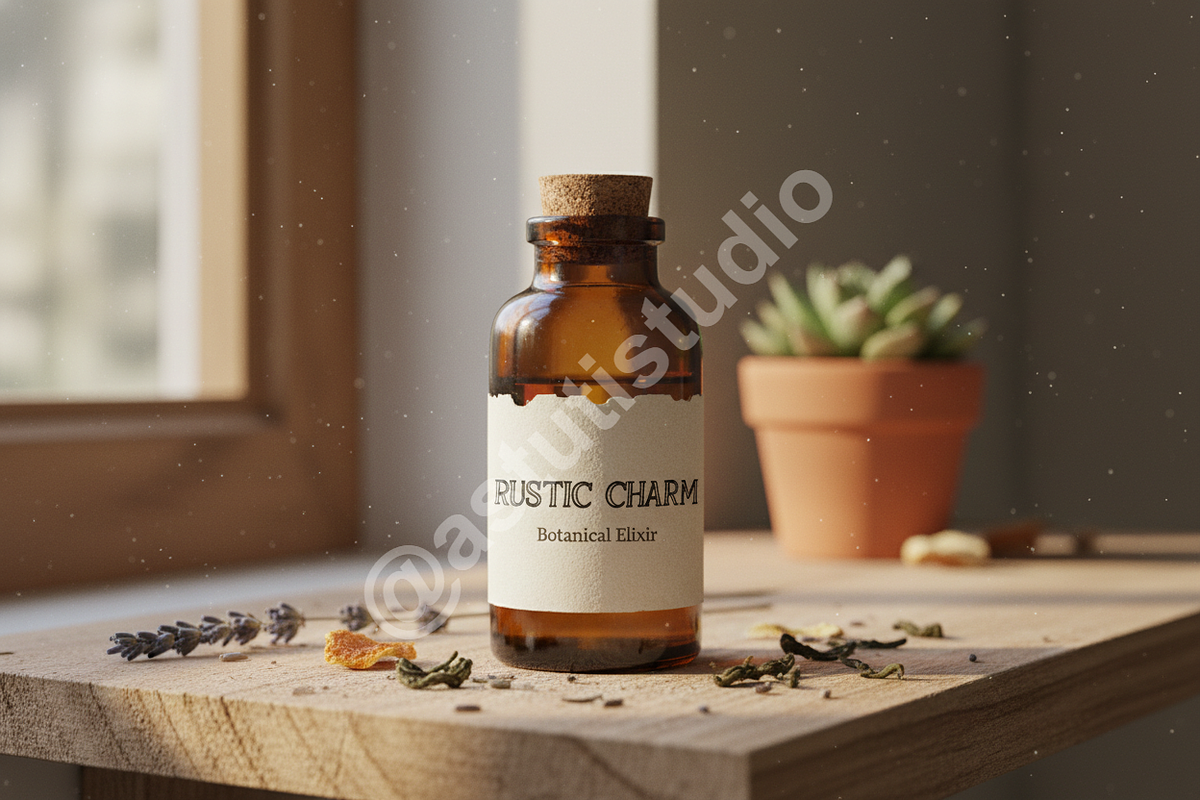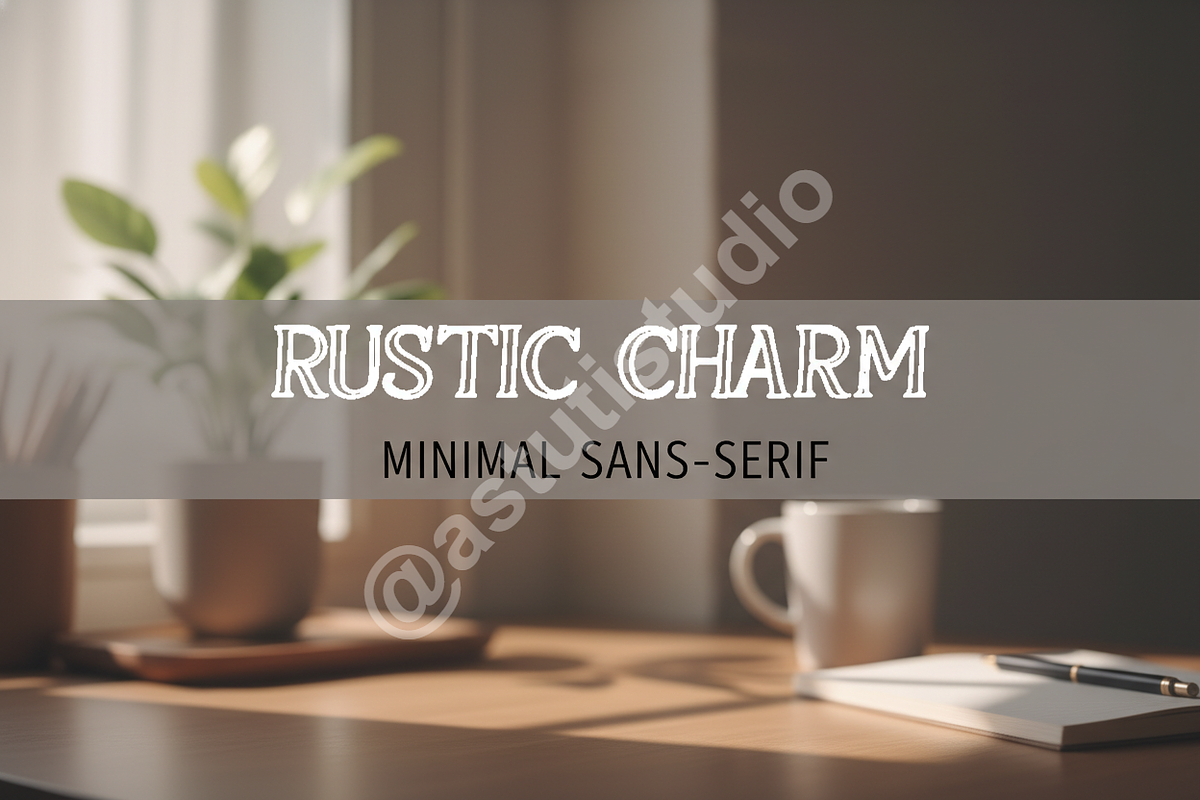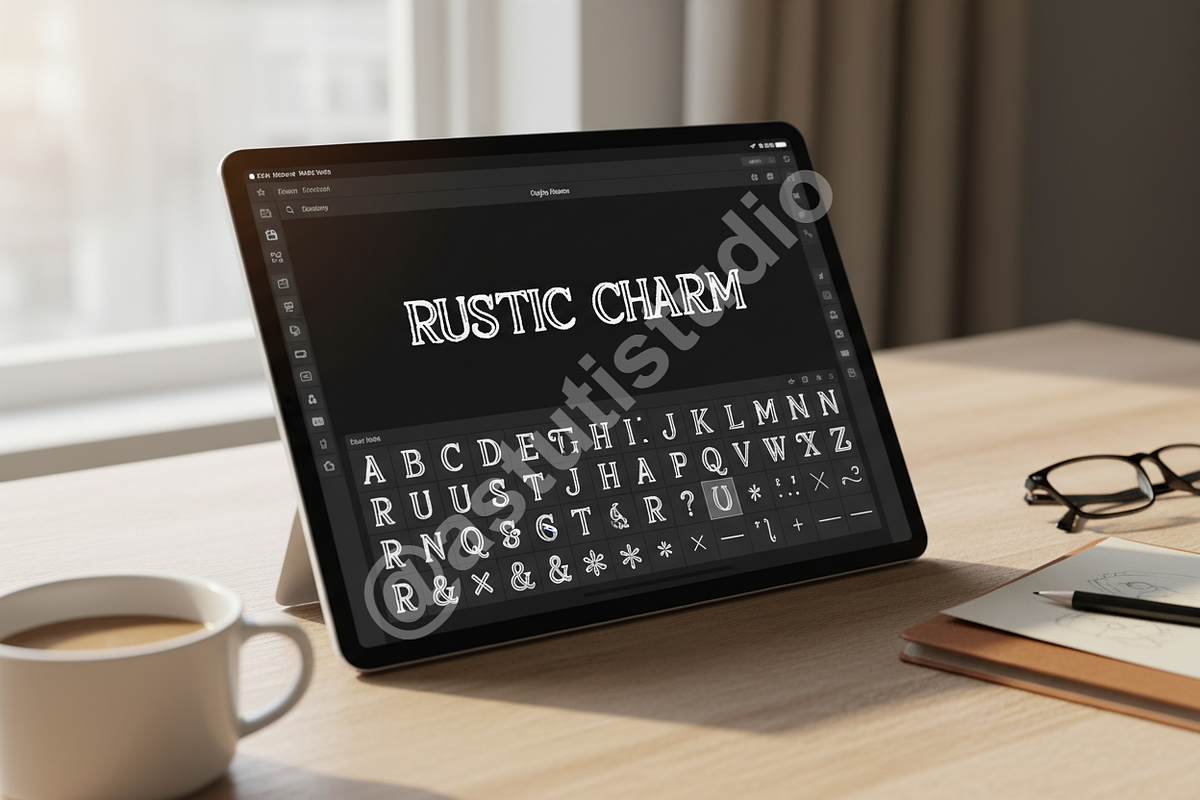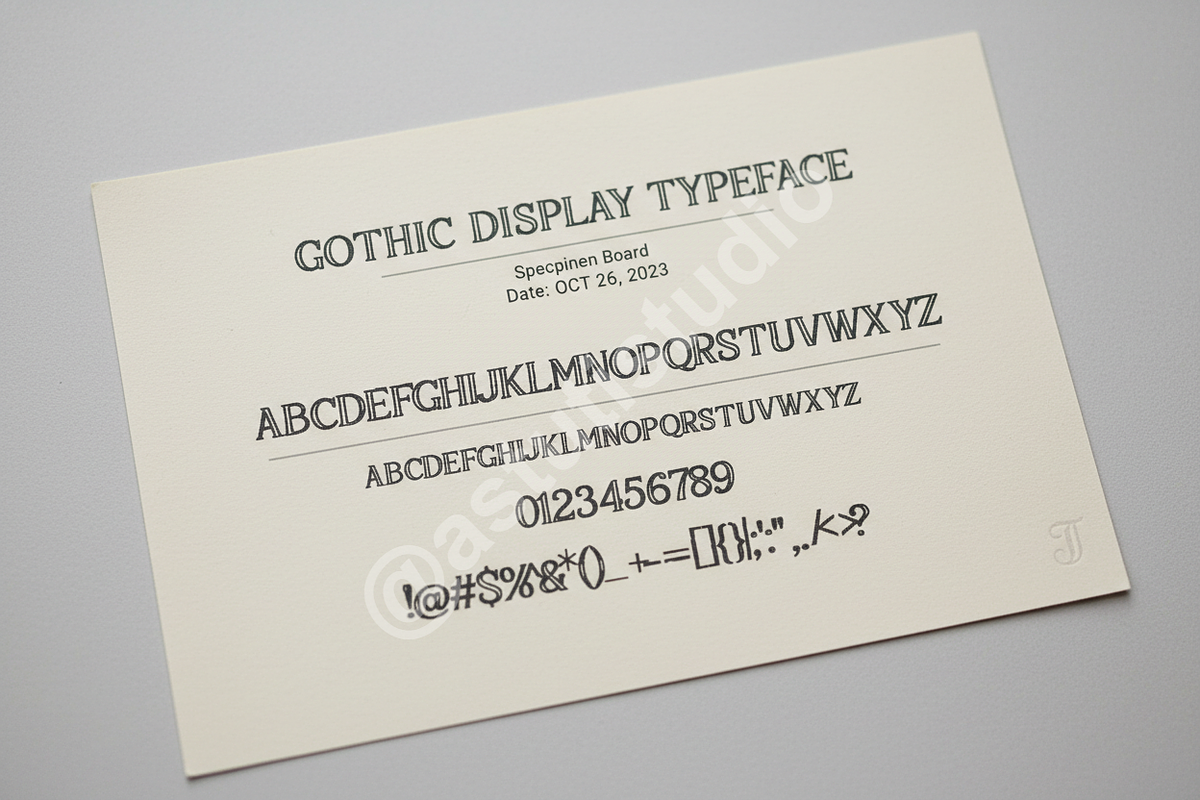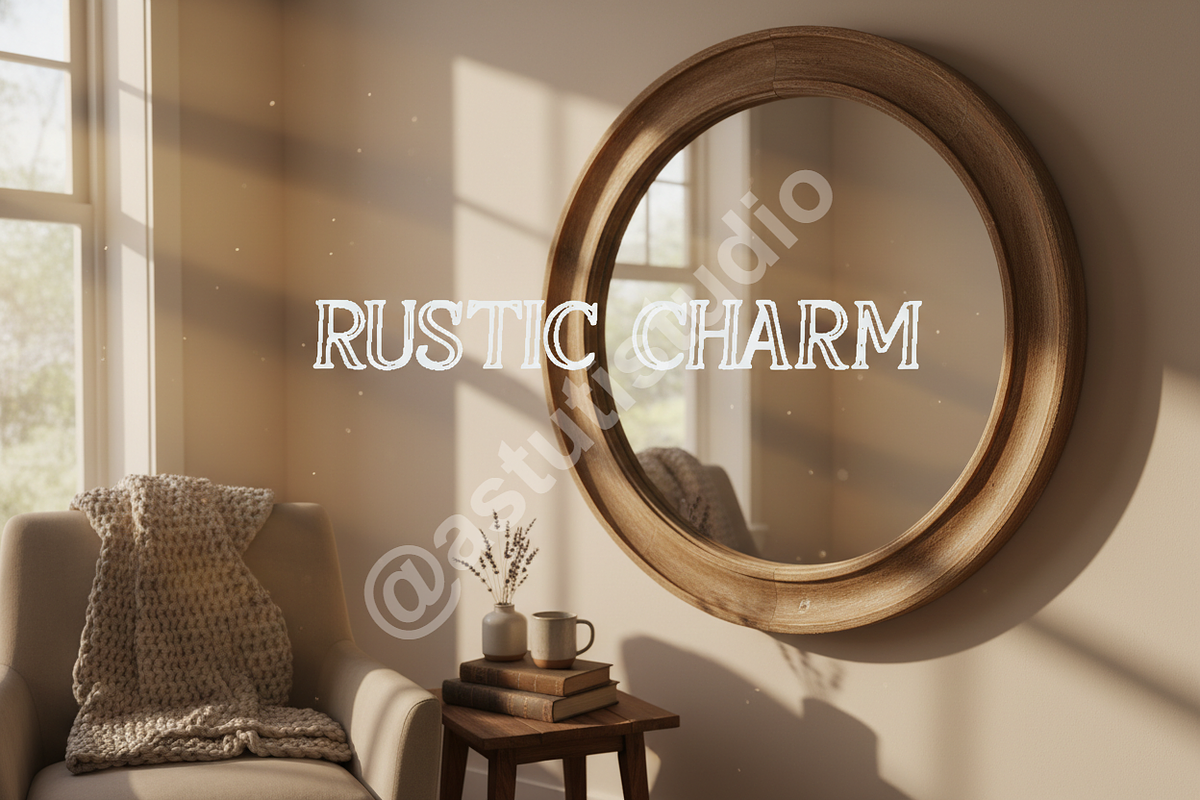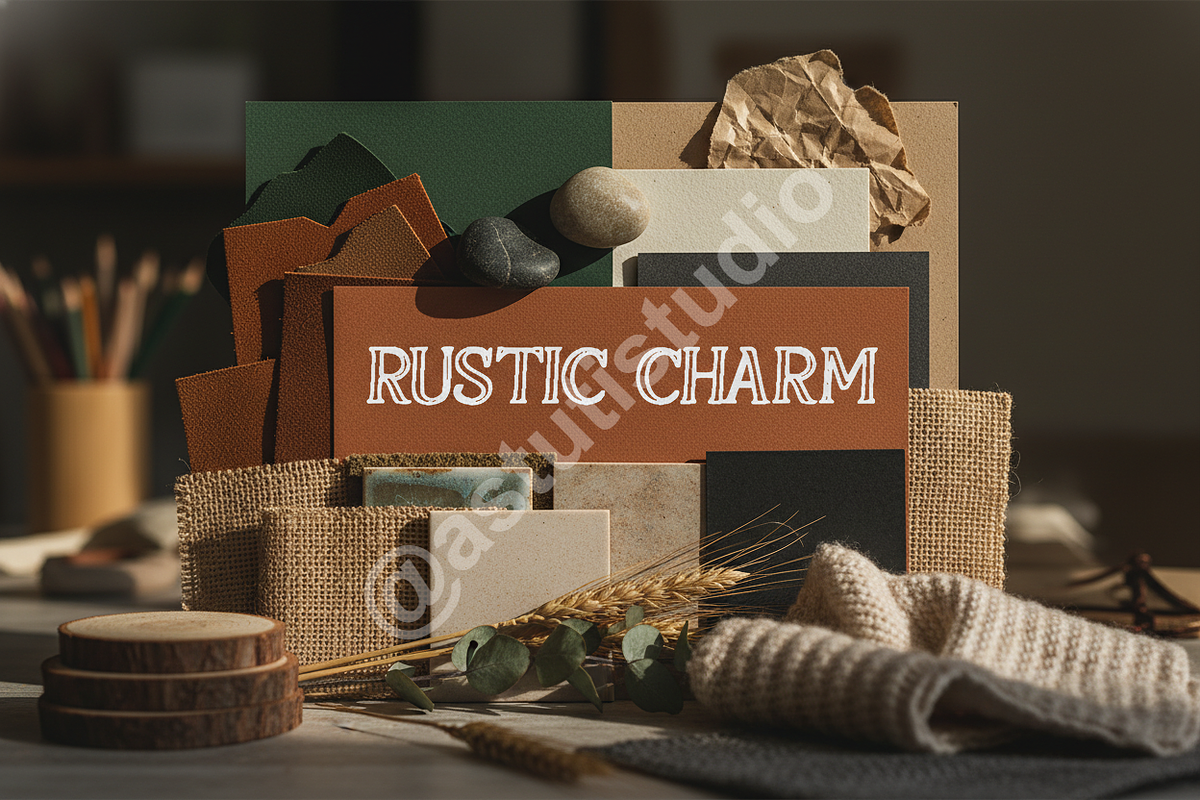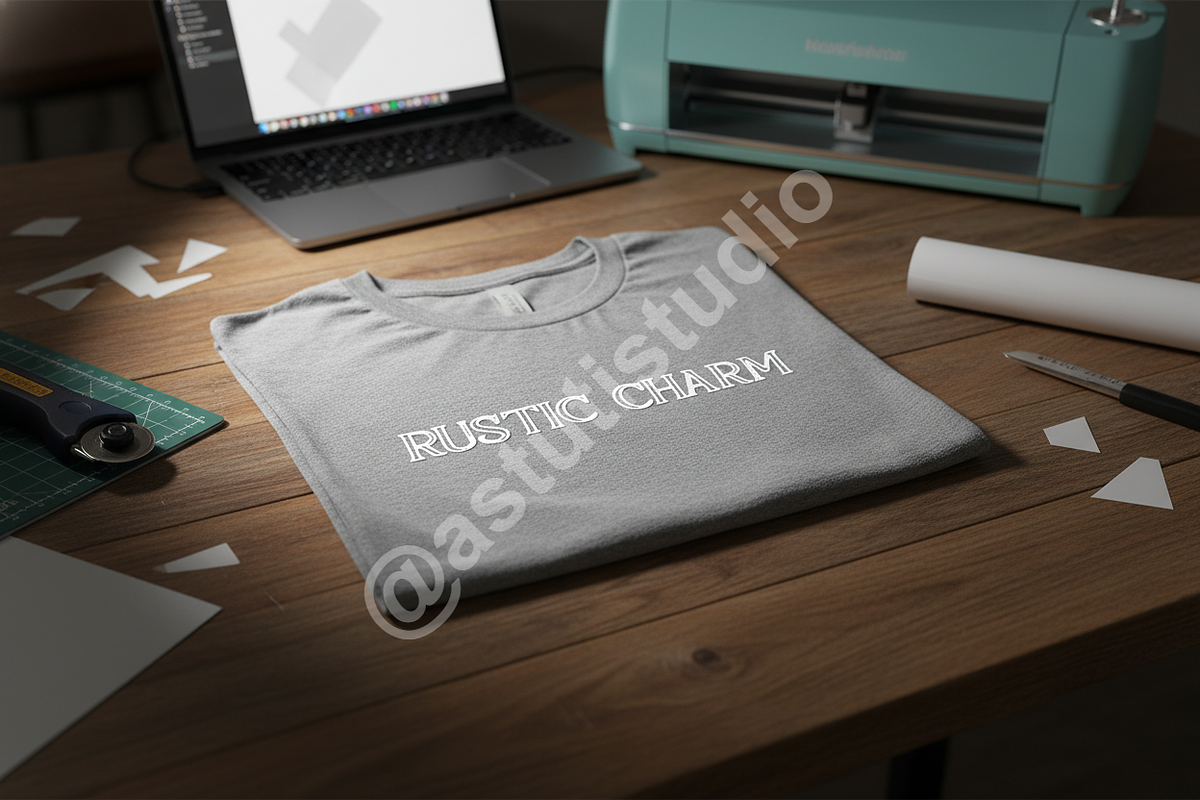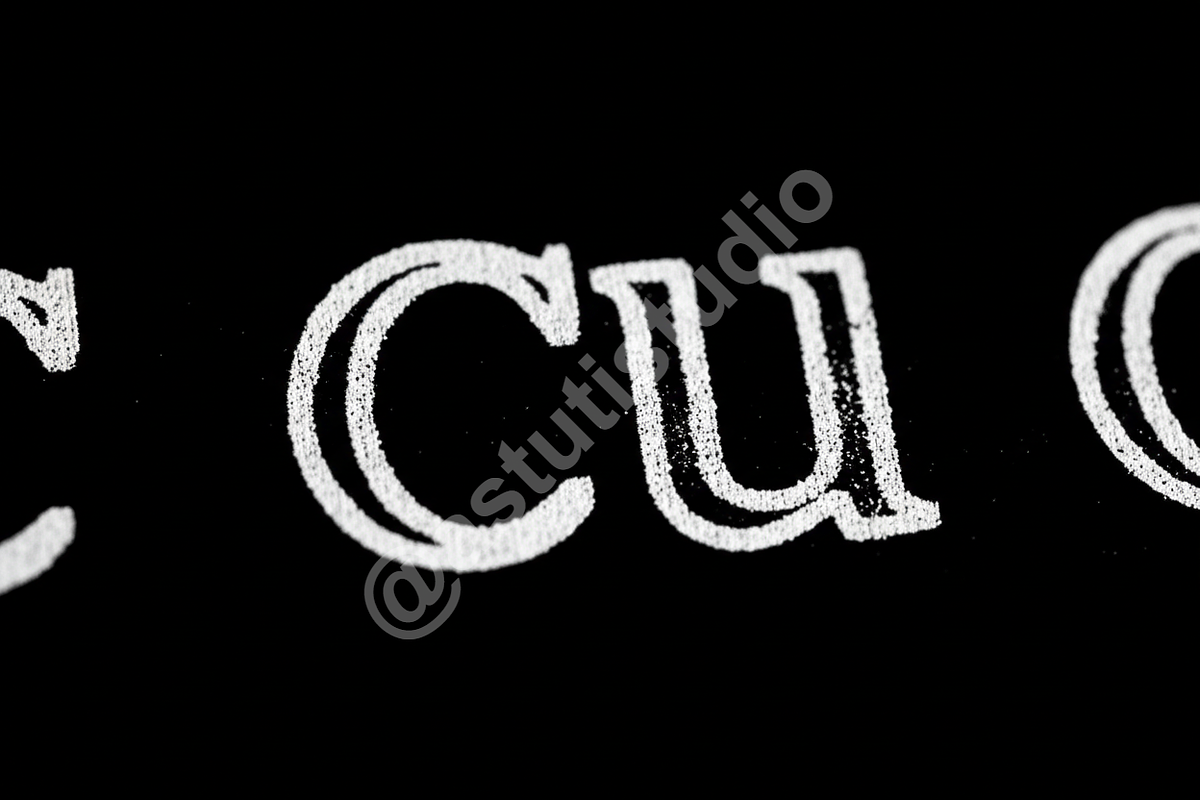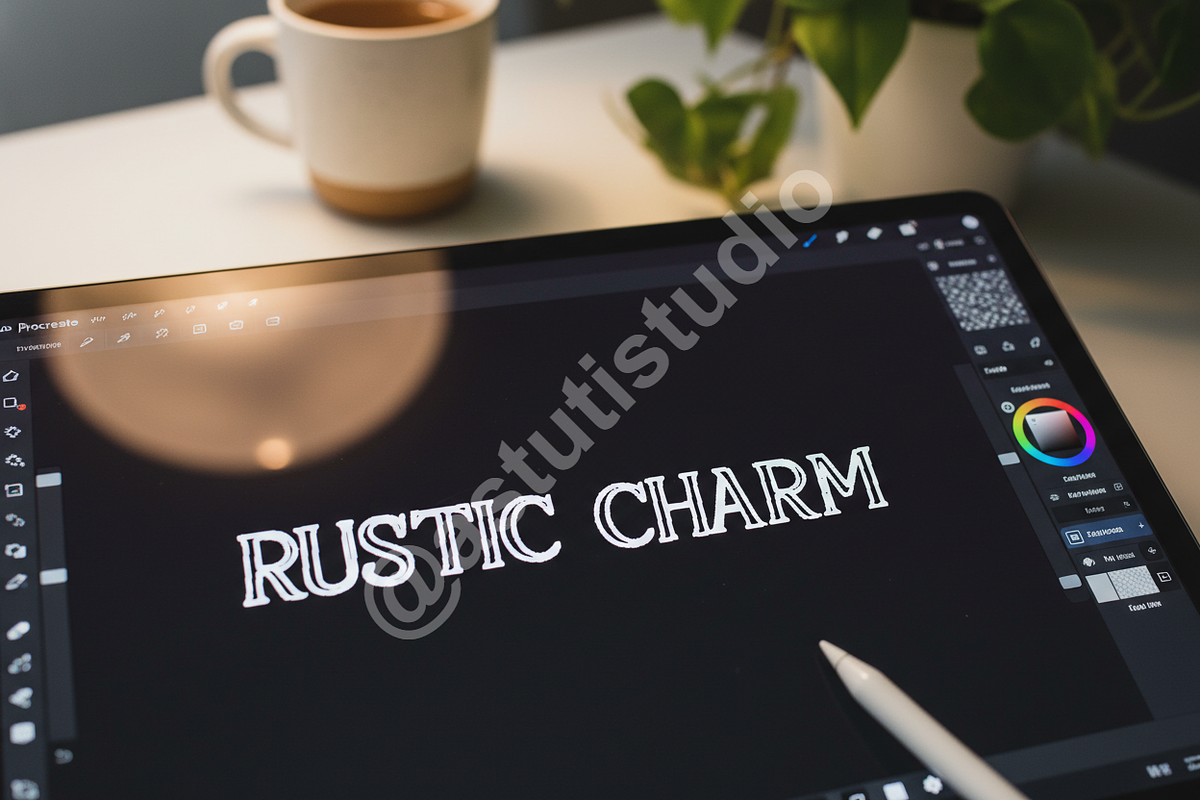
Cuya - Elegant High-Contrast Display
Introducing Cuya, a meticulously crafted display serif font designed for the discerning creative. Cuya merges classic Parisian elegance with modern, sharp lines, delivering a sophisticated typographic solution for premium projects. Its high-contrast structure ensures maximum impact, making every headline feel exclusive and memorable. Perfect for defining luxury brand identities, high-fashion editorials, and sophisticated social media presence.
- High-Contrast Weight Distribution: Creates dramatic visual interest and visual hierarchy.
- Extensive Punctuation & Numerals: Comprehensive character set for professional application.
- Elegant Ligatures & Alternates: Adds stylistic flow and customization options (OTF required).
- Multi-Lingual Support: Designed for global luxury markets (Latin Extended).